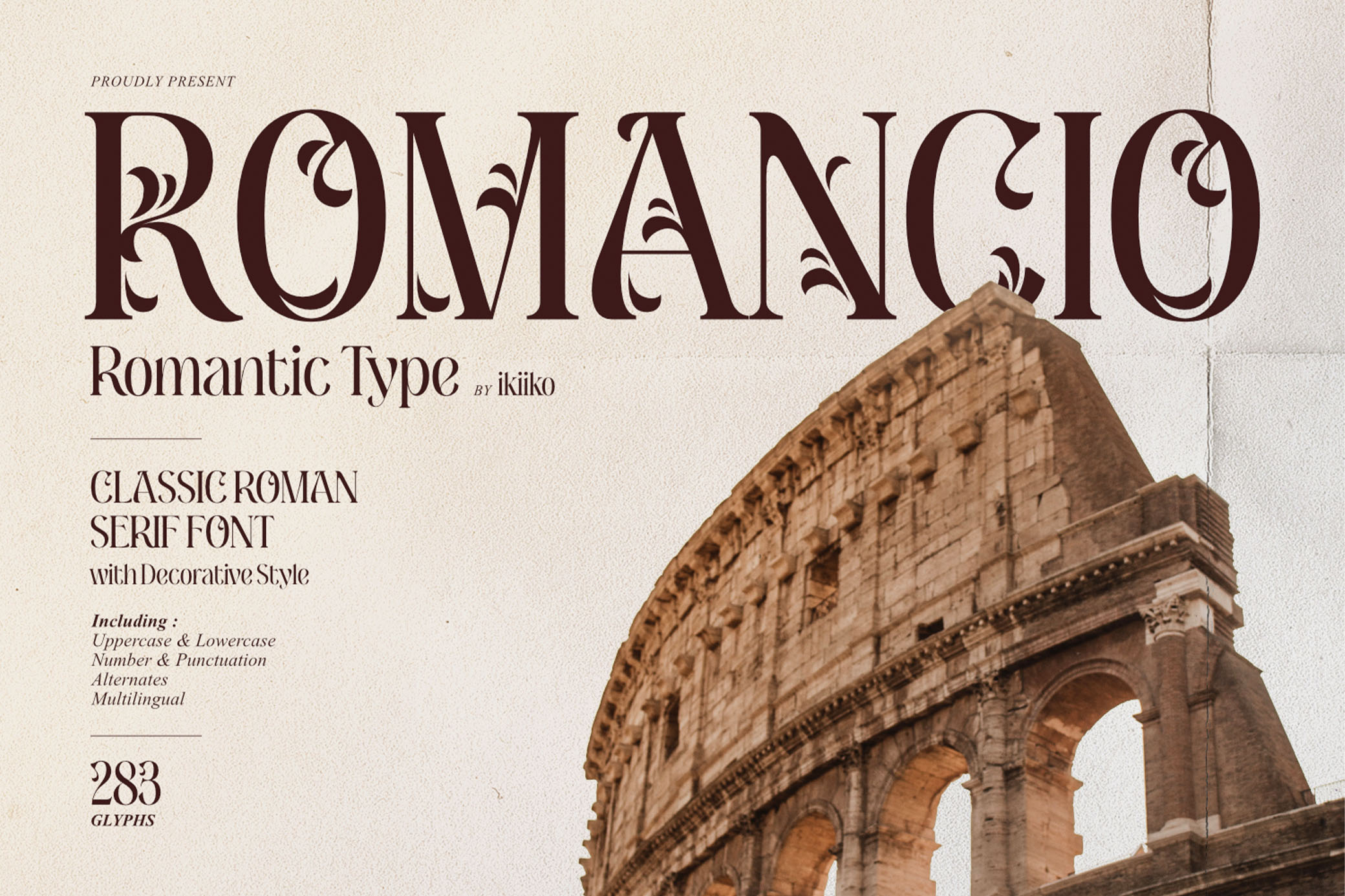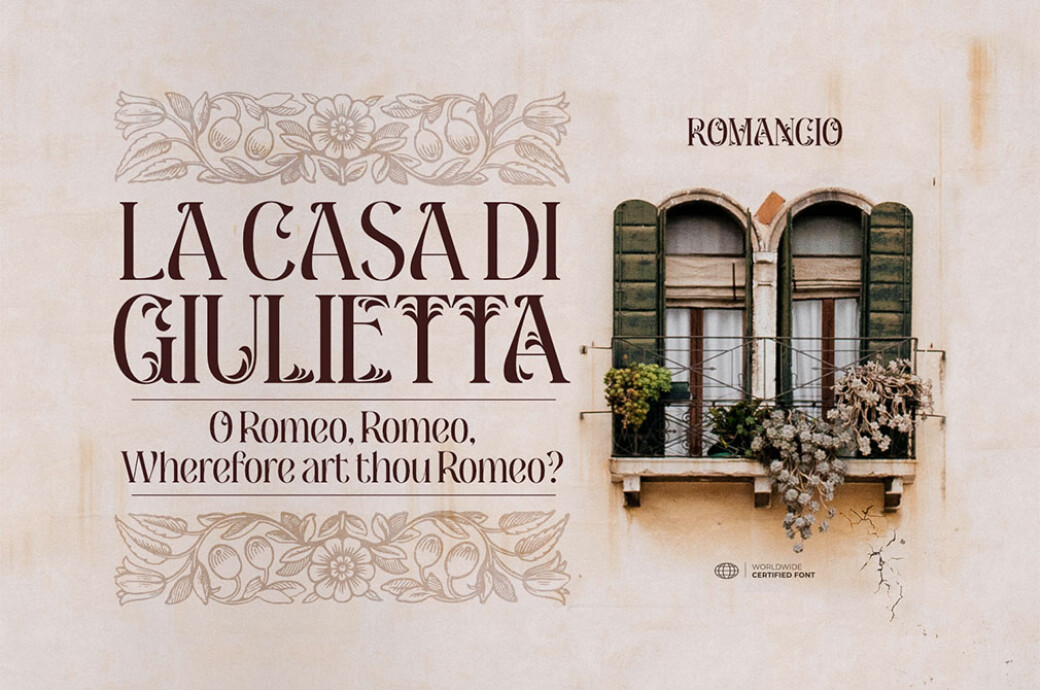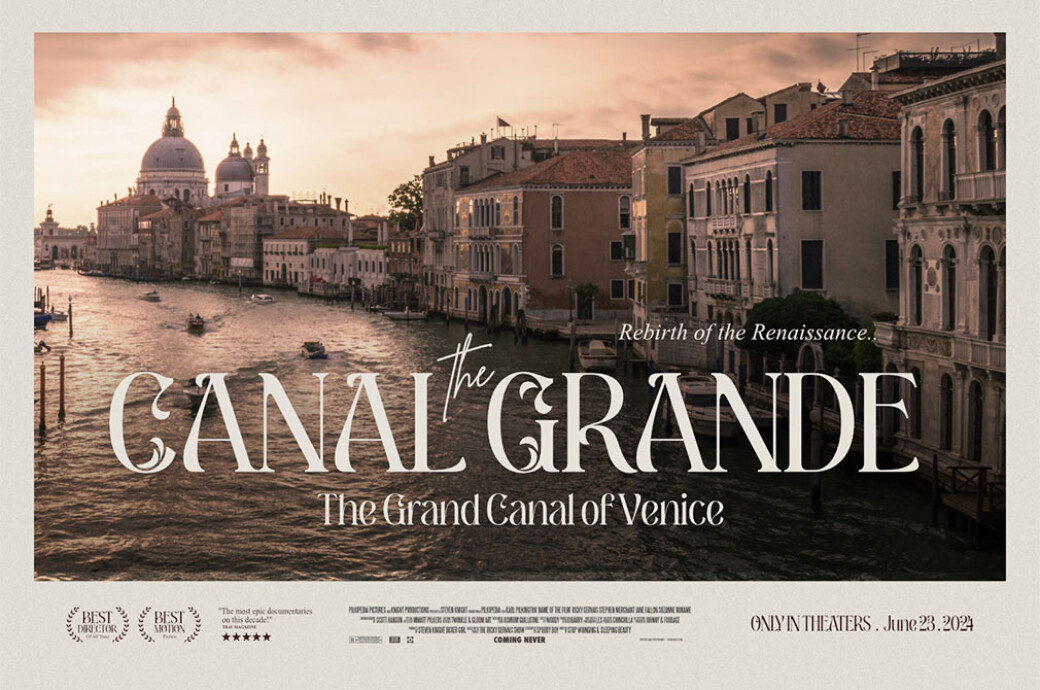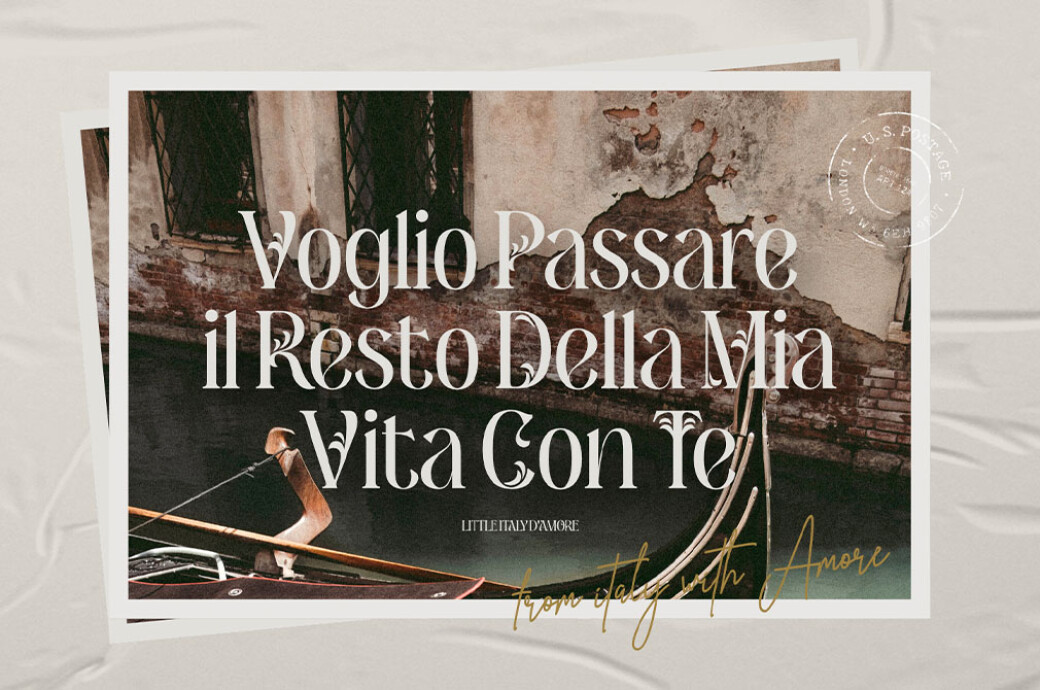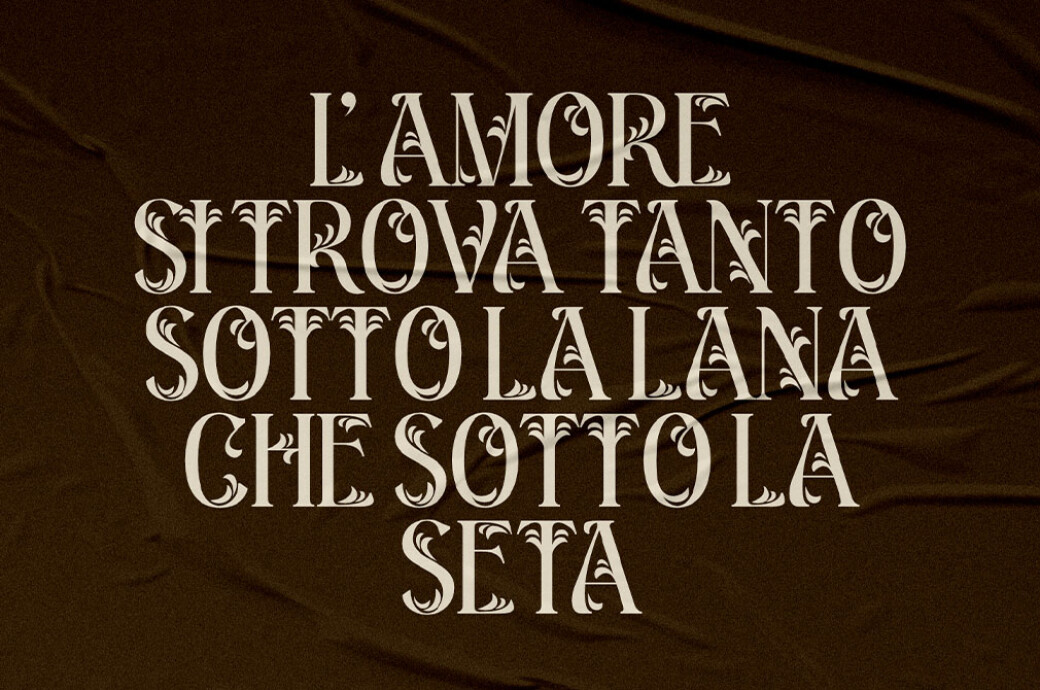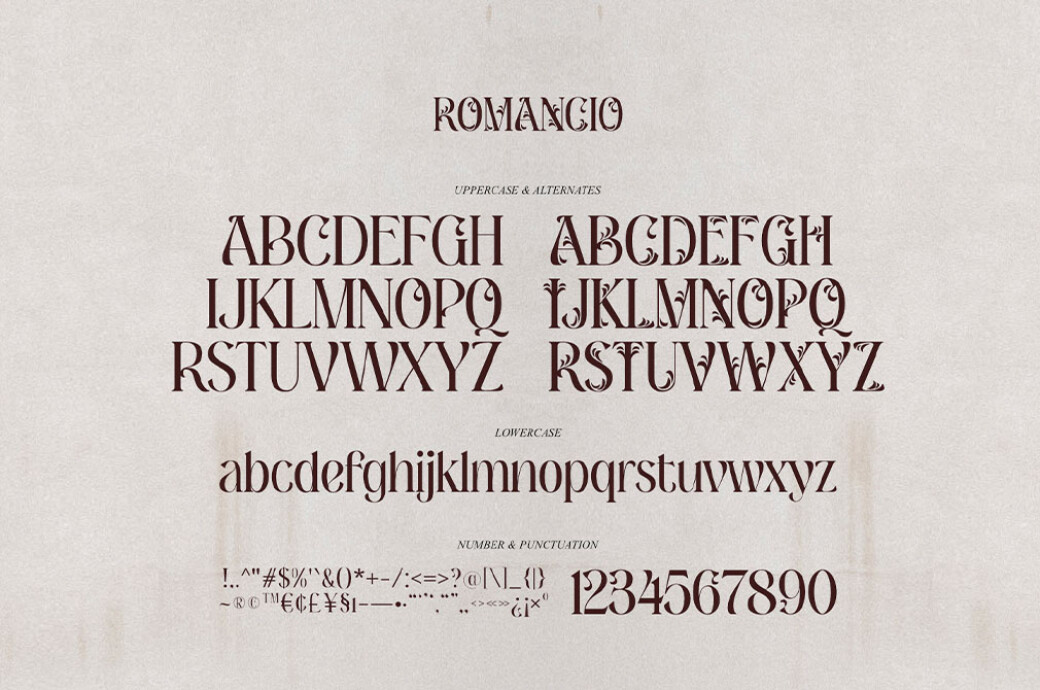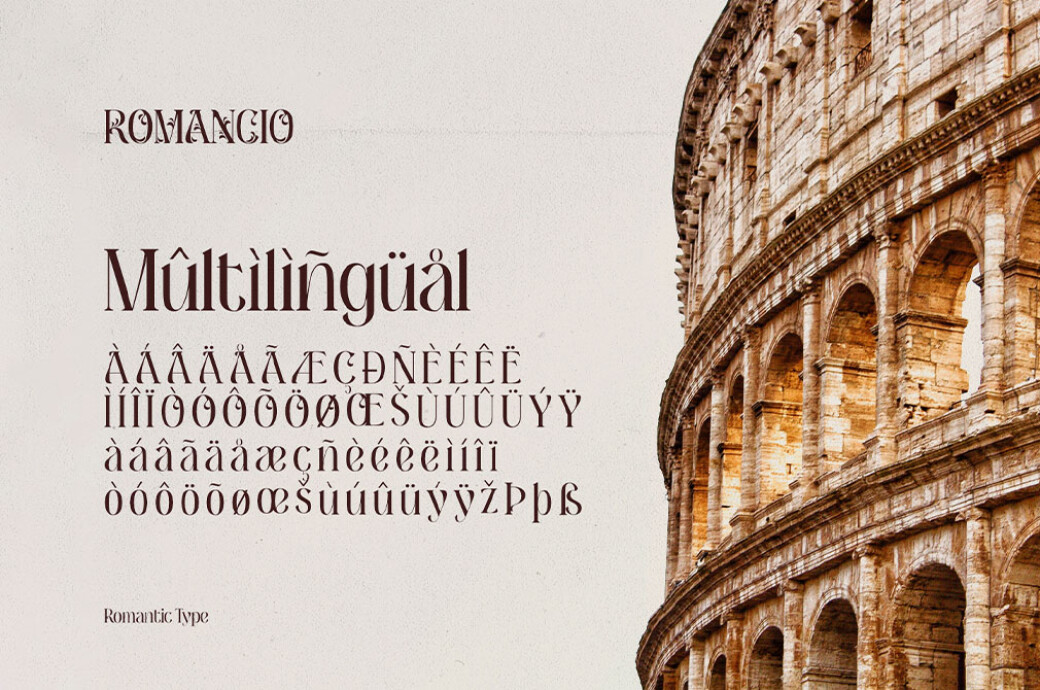
Romancio — Romantic Type
Romancio Romantic Type
Intricate serifs of this font combined with its soft edges make you think of distant lands and romantic journeys. Add the type to your designs to give it a sophisticated vibe!Whether you’re crafting an elegant logo or looking for a font for a fashion magazine, this one will be a perfect fit! It comes with upper and lowercase letters, numbers, punctuation, alternates, and multilingual support, so you will be fully armed for your creative project.